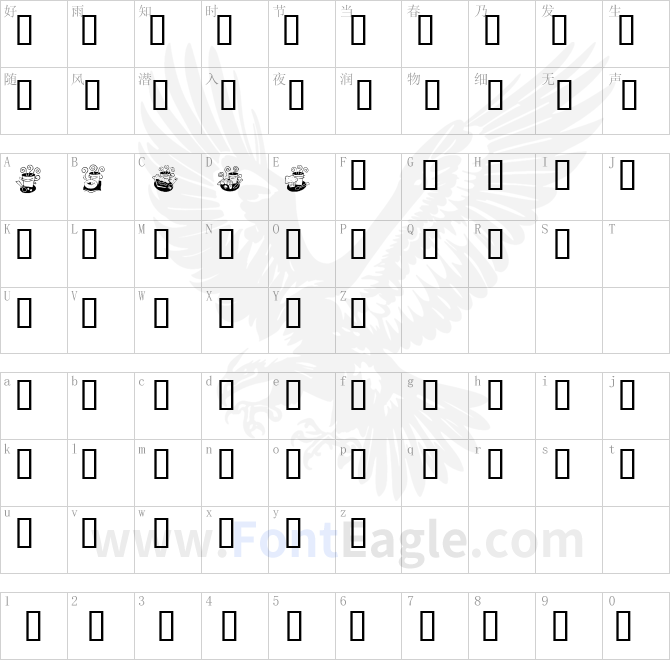
- Font name:KR Coffee Dings
- Font Subfamily ID:Macromedia Fontographer 4.1 KR Coffee Dings
- Font Full Name:KR Coffee Dings
- Font Version:Macromedia Fontographer 4.1 04/04/2001
- Postscript:KRCoffeeDings